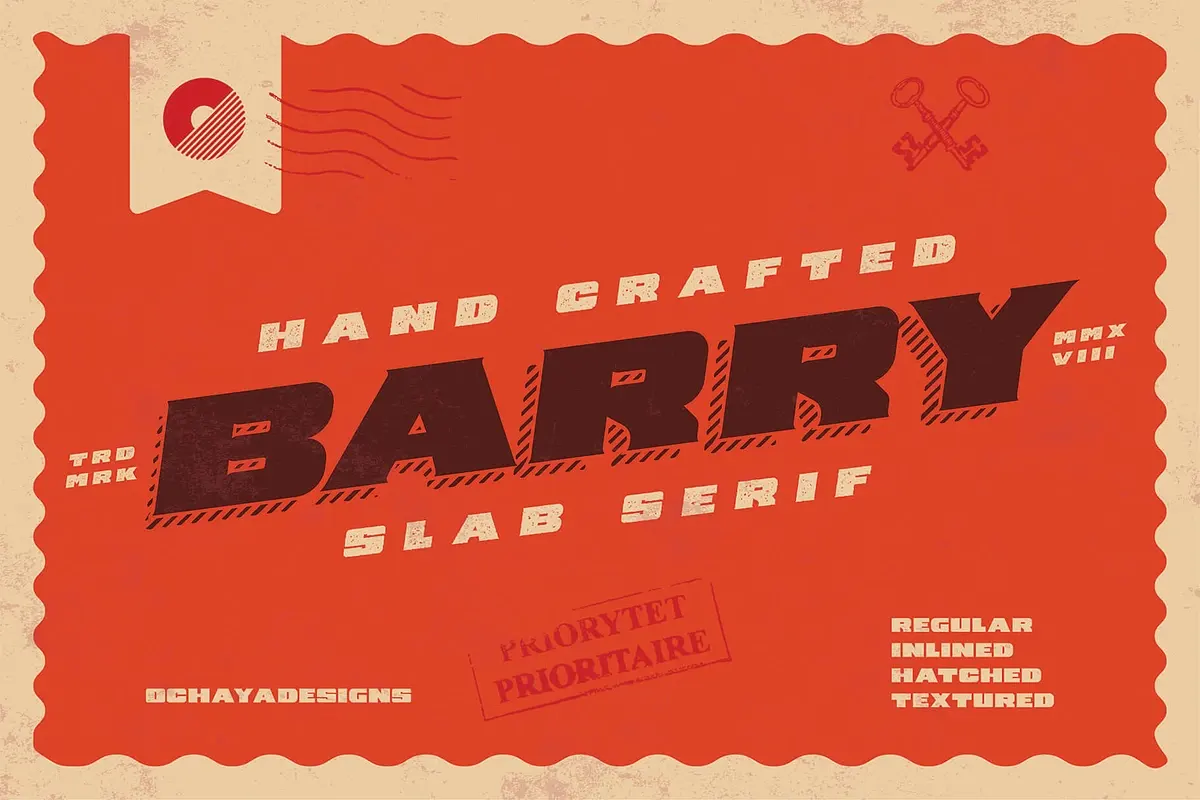
Barry | 4 Font Styles Free Download
Barry | 4 Font Styles Free Download is a versatile font family that offers four unique styles, allowing you to create a wide range of designs. Whether you're working with bold headlines, clean body text, or stylish logos, the Barry font family provides flexibility and elegance for various design projects.
The different styles include a mix of weights and designs that help you maintain a cohesive and professional look across both digital and print media. Perfect for branding, editorial design, packaging, and web design, Barry is a great choice for creating modern, polished typography.